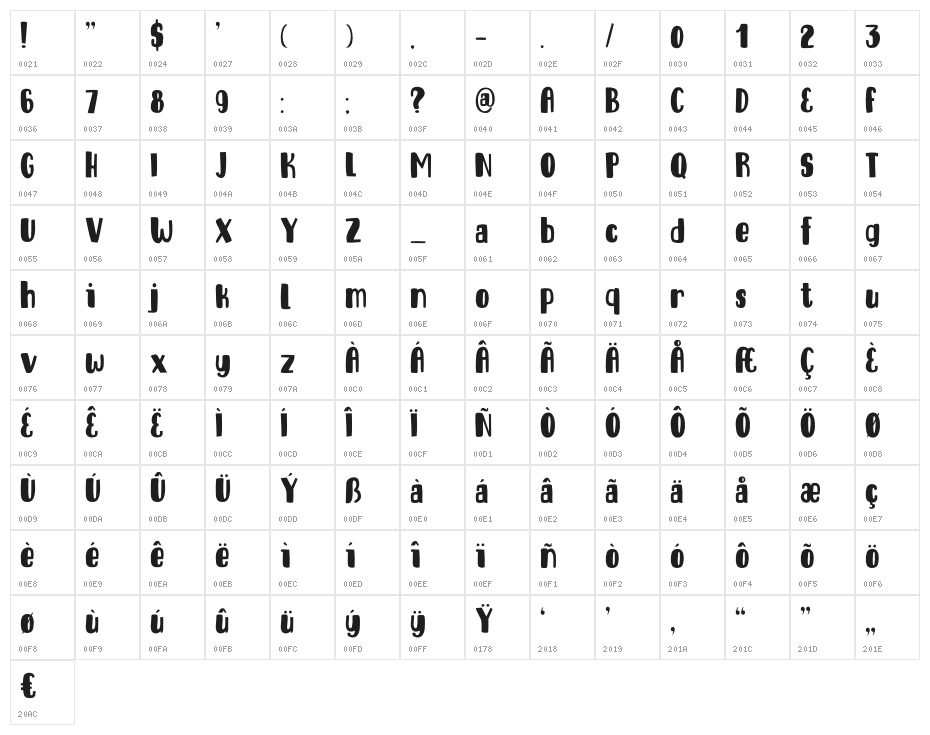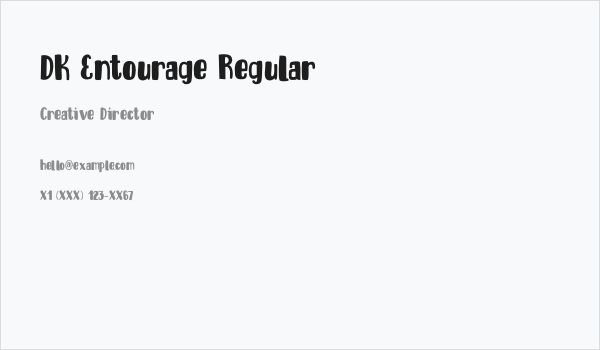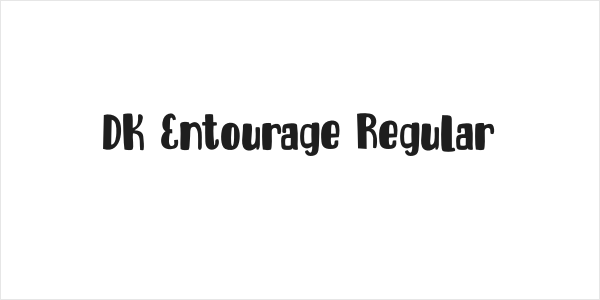
DK Entourage Regular Font
DK Entourage Regular Description
This font features a bold and playful design with rounded edges and a slightly irregular shape, giving it a whimsical and friendly appearance. The characters are thick and substantial, providing a strong visual impact. The uppercase and lowercase letters maintain a consistent style, with the lowercase letters slightly more condensed. The numerals and special characters follow the same bold and rounded aesthetic, ensuring uniformity across the font. This style is particularly eye-catching and suitable for designs that require a fun and approachable look.
| Proposed Projects | Ideal for children's books, playful branding, posters, and social media graphics. |